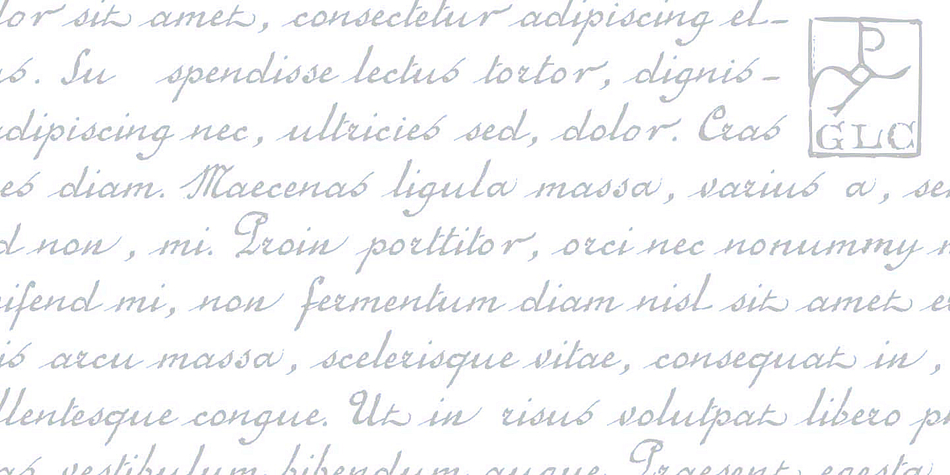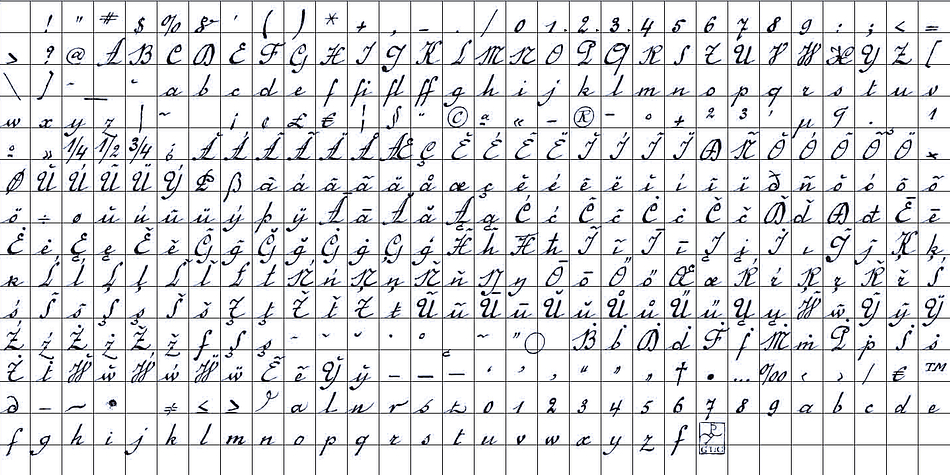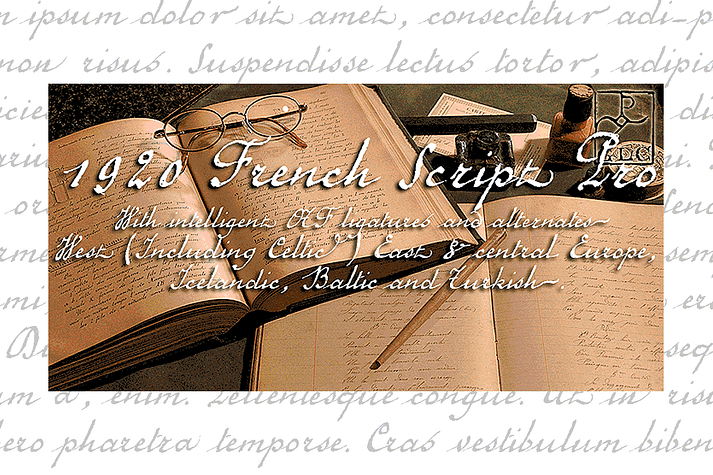
1920 French Script Pro
1920 French Script Pro is a font family published by GLC Foundry.
This font was created inspired from one of a standard French manual style in use from the beginning of 1900’s to the end of World War II, when people were writing most often with penholders and metal nibs. This typeface is carelessly legible as it was used for the lithographical printing of university textbooks. All lower cases from a to z and numerals from 0 to 9 are doubled by a slightly different one to allow a varying manual aspect in texts. We have added a lot of diacritic characters, covering West (including Celtic) and North European, Icelandic, Baltic, Eastern European and Turkish language. A few special glyphs allows to make final loops or underlining.